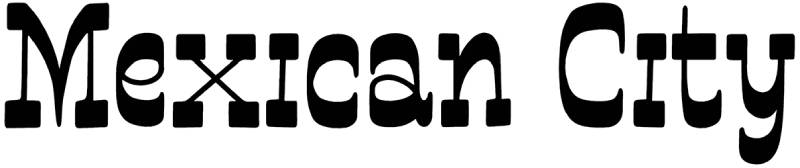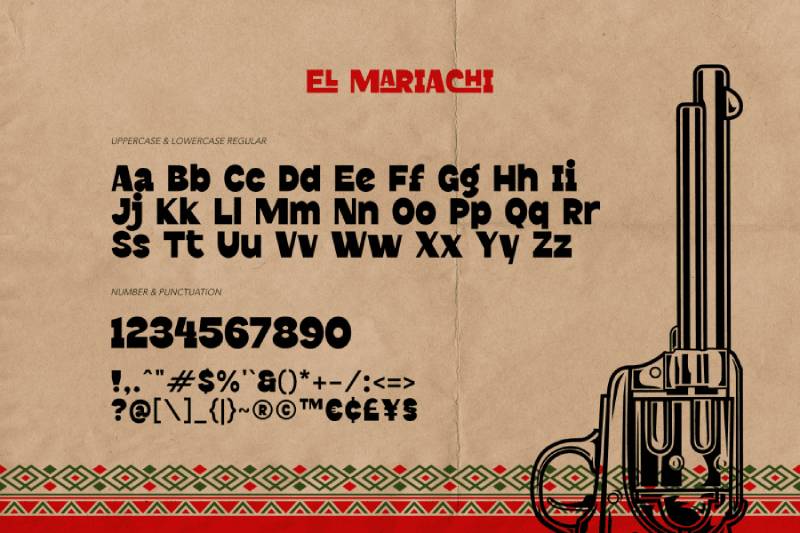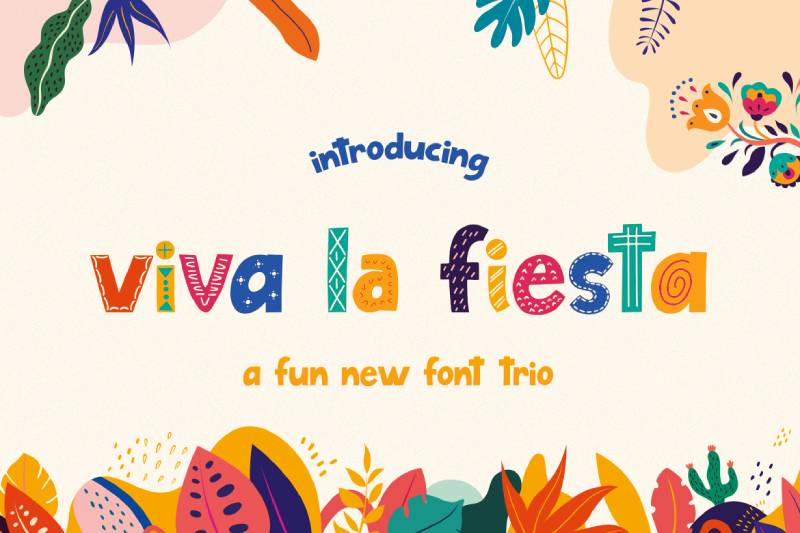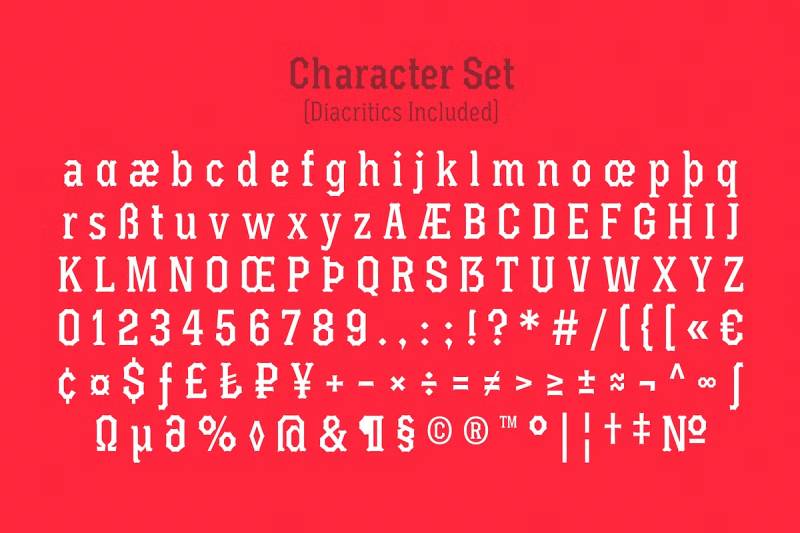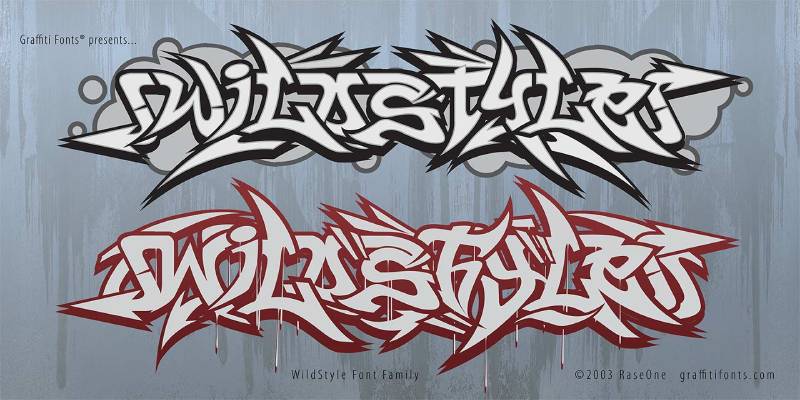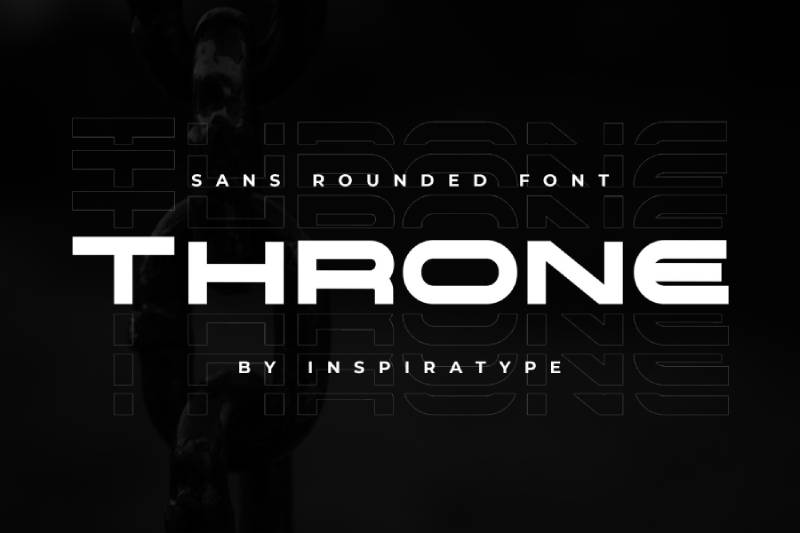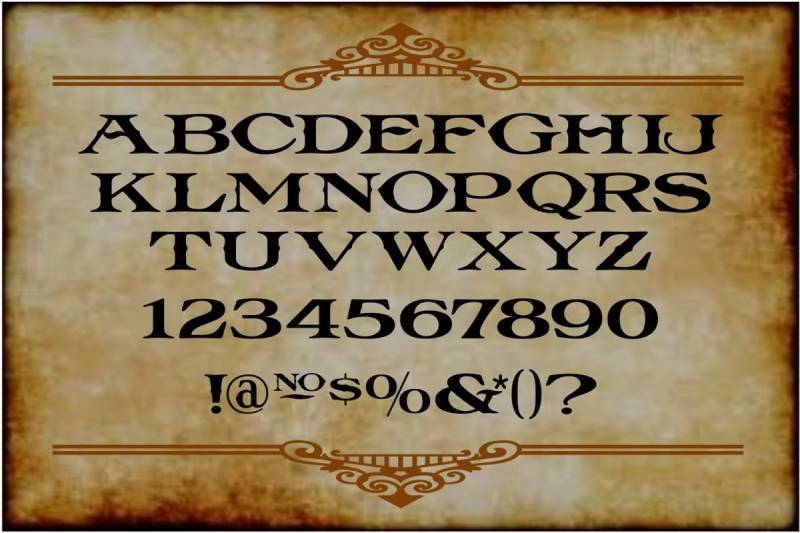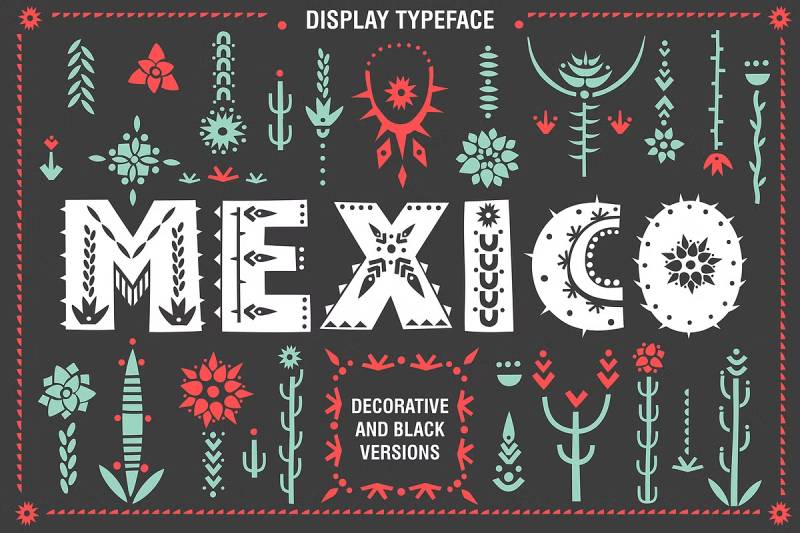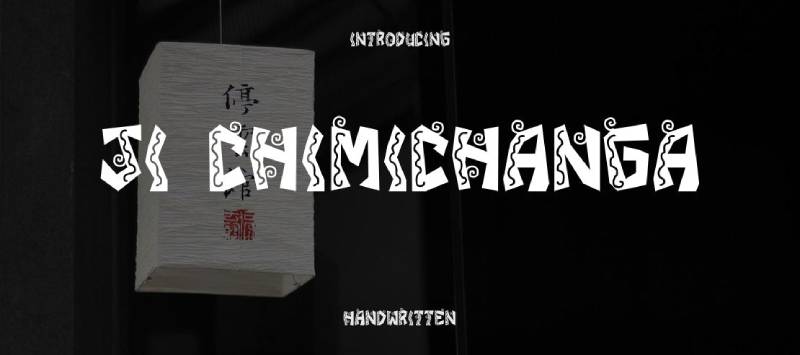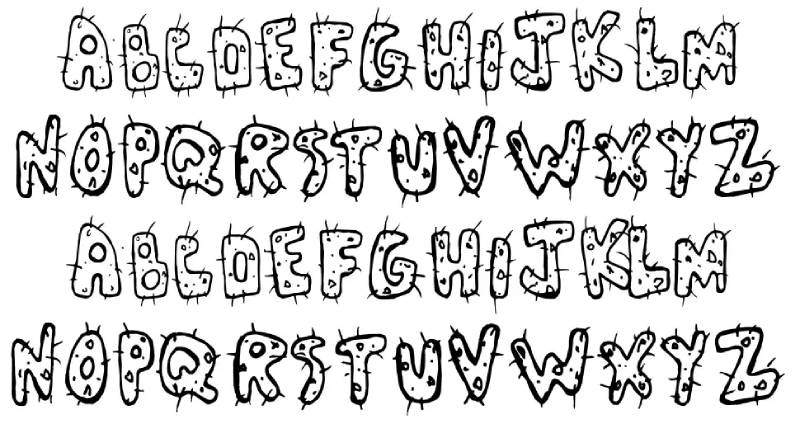
Mexican culture doesn’t whisper. It announces itself with bold colors, rich textures, and unmistakable energy. Finding the best Mexican fonts means capturing that spirit in letterforms.
Whether you’re designing a taco truck logo, Cinco de Mayo flyers, or Día de los Muertos event materials, the right Hispanic typeface makes all the difference.
This guide covers 24 Mexican-style fonts ranging from hand-decorated folk art lettering to bold display types and vintage Western options. You’ll learn what makes each font unique, where to use it, and how to pair fonts effectively.
Some are free. Others require licensing. All bring authentic Latin flair to your creative projects.
The Best Mexican Fonts
| Font Name | Design Context | Semantic Attributes | Best Use Case |
|---|---|---|---|
| Buckaroo | Western-inspired aesthetic with Mexican ranching heritage | Rustic, bold, cowboy culture | Restaurant signage, rodeo events |
| Mexican City | Urban Mexican typography with contemporary flair | Modern, metropolitan, cultural | Urban brand identity, modern menus |
| El Mariachi | Traditional musician aesthetic with ornate details | Musical, decorative, celebratory | Entertainment venues, festival posters |
| Locobeans | Playful coffee culture with Mexican energy | Energetic, whimsical, casual | Coffee shop branding, casual dining |
| Viva La Fiesta | Festive celebration typography with vibrant character | Joyful, party-themed, expressive | Party invitations, event marketing |
| Santiago | Colonial Spanish influence with refined elegance | Classic, historical, sophisticated | Upscale restaurants, heritage projects |
| Gandul | Laid-back street style with relaxed personality | Casual, easygoing, authentic | Food truck branding, street food |
| See De Mayo | Holiday-specific design with patriotic undertones | Celebratory, patriotic, seasonal | Cinco de Mayo promotions, Mexican holidays |
| La Tequila | Spirit-inspired aesthetic with premium quality signals | Premium, beverage-focused, mature | Bar branding, beverage labels |
| Durango | Regional state typography with northern character | Regional, robust, authentic | Regional branding, authentic venues |
| Wildstyle | Graffiti-influenced urban Mexican street art | Edgy, urban, artistic | Youth-oriented brands, street wear |
| Mexicanos | National identity typography with cultural pride | Patriotic, national, proud | Cultural events, national campaigns |
| Throne | Regal Mexican empire aesthetic with authority | Majestic, authoritative, imperial | Luxury brands, premium products |
| Longhorn | Texas-Mexican cattle ranching heritage | Western, ranch-inspired, sturdy | Steakhouses, Tex-Mex restaurants |
| Mexico (decorative) | Ornamental traditional design with intricate patterns | Decorative, traditional, ornate | Formal invitations, decorative headers |
| Krenzy Crispy | Crunchy food texture with playful energy | Fun, food-centric, textural | Snack packaging, fast food chains |
| Chinchilla | Soft furry aesthetic with gentle character | Soft, friendly, approachable | Family restaurants, children’s content |
| Chimichanga | Specific dish identity with playful food culture | Food-specific, fun, appetizing | Menu headers, food delivery apps |
| Cactus Love | Desert flora with romantic Mexican charm | Natural, romantic, desert-inspired | Wedding invitations, botanical themes |
| Mexican Tequila | Spirit-specific branding with agave heritage | Authentic, spirit-focused, traditional | Tequila labels, bar menus |
| Taco Box | Fast-casual food packaging with convenience focus | Quick-service, packaging-oriented, casual | Fast food chains, takeout branding |
| Avocado Taco | Fresh ingredient focus with health-conscious appeal | Fresh, healthy, ingredient-driven | Health-focused eateries, fresh menus |
| Cactus Sandwich | Fusion food concept with desert elements | Fusion, unique, adventurous | Fusion restaurants, creative menus |
| Mayan Square | Ancient civilization geometry with historical depth | Historical, geometric, ancient | Cultural museums, heritage sites |
Buckaroo
What It Is
A handmade display font created by HipFonts. Buckaroo draws from American Southwest and Mexican design traditions. It blends old Western lettering with contemporary functionality.
Visual Characteristics
- Rounded sans-serif with hand-drawn edges
- Warm, approachable letterforms
- Full uppercase and lowercase character set
- Slightly weathered texture that feels authentic
- Numbers and special characters included
This typeface channels hand-painted signage traditions common across Mexico and the American Southwest.
Cultural Context
Think desert cantinas, vintage Tex-Mex signage, and taco truck branding. Buckaroo captures that cross-border aesthetic where Mexican and American Western cultures meet.
Not overtly stereotypical. It has that lived-in quality you see on old restaurant signs in border towns.
Best Use Cases
- Restaurant and taqueria branding
- Food packaging design
- Event posters and flyers
- T-shirt graphics
- Signage and badges
- Logo design for southwestern themes
Works best at larger sizes where the handcrafted details show.
Pairing Recommendations
Combine with clean sans-serif fonts for body text. Works well alongside simple geometric typefaces that don’t compete with its decorative personality.
Technical Details
- Formats: OTF, TTF
- Full character set with punctuation
- Free for personal use
- Commercial license available through Creative Market and Envato Elements
Similar Alternatives
- Durango: More rugged Western feel
- Santiago: More ornate Mexican decoration
- Gandul: Similar vintage vibe, different weight options
Mexican City
What It Is
A slab serif font designed by Hilmius Akbar and published by Typefactory. Inspired by mid-19th century typefaces with thick bracketed serifs.
Visual Characteristics
- Bold slab serifs with generous proportions
- Clean, sharp edges mixed with subtle thickness variations
- Neat letter arrangement
- Uppercase and lowercase letters
- Ligatures and stylistic alternates included
- Multilingual support with Spanish characters
Cultural Context
Mexican City references the colonial architectural typography you see in old city buildings. It’s formal enough for upscale Mexican restaurants but casual enough for everyday branding.
Less folk art, more metropolitan sophistication. The name says it all.
Best Use Cases
- Headlines and poster design
- Logo and branding projects
- Restaurant menus (especially upscale establishments)
- Product packaging
- Editorial design
- Jacket and apparel graphics
This typeface creates strong visual hierarchy in designs where you need authority with character.
Pairing Recommendations
Works beautifully with script fonts for accents. Pair with simple sans-serifs for body copy. The bold serifs need breathing room.
Technical Details
- Formats: OTF, TTF, WOFF, WOFF2
- Available on MyFonts, Dafont, Creative Fabrica
- Demo version free for personal use
- Commercial license required for business projects
Similar Alternatives
- Luchador: More vintage wrestling poster feel
- Mexicana: Similar slab-serif structure with more ornamentation
- Brellos: Angular shapes with Mexican influence
El Mariachi
What It Is
A bold sans-serif font designed by ikiiko (Wahyu Eka Prasetya and Andhika Pradana), published by IKIIKOWRK. Released in 2021.
Simple letterforms meet attractive ligatures. Strong character without overwhelming decorative elements.
Visual Characteristics
- Bold weight throughout
- Clean sans-serif base
- Eye-catching ligatures add personality
- All-caps design feel despite having lowercase
- Vintage poster influence
The ligatures are what make this one special. They add character without going full decorative.
Cultural Context
Named after the iconic Mexican musicians. El Mariachi captures the energy and confidence of mariachi culture without the sombreros and cactus clichés.
It’s more urban Mexico City than tourist shop.
Best Use Cases
- Vintage design projects
- Mexican brand product packaging
- Movie posters and entertainment graphics
- Food industry branding
- Fashion and apparel design
- Print design projects
Looks fantastic on taco menus. Just saying.
Pairing Recommendations
Pair fonts with thin or light-weight sans-serifs. The bold character needs contrast. Script fonts work for accents but don’t overdo it.
Technical Details
- Formats: OTF, TTF
- Full character set included
- Demo version free for personal use
- Commercial license available through ikiiko
Similar Alternatives
- Buckaroo: More hand-drawn, less structured
- Mexican City: Slab-serif versus sans-serif
- Gandul: Similar vintage American feel
Locobeans
What It Is
A font duo created by Salt and Pepper Designs. Includes two versions: Fill and Outline. Takes a standard sans-serif structure and gives it playful personality.
Visual Characteristics
- Bouncy, irregular sans-serif letterforms
- Two complementary styles (solid fill and outline)
- Whimsical, hand-drawn character
- Playful weight distribution
- Full character set
The outline version looks great layered over the fill version for two-color effects.
Cultural Context
Less traditional Mexican, more fiesta party vibes. Locobeans works for fun, casual projects that need Latin energy without historical weight.
Kid-friendly. Birthday party appropriate.
Best Use Cases
- Children’s party invitations
- Cinco de Mayo celebrations
- Social media graphics
- Instagram posts and stories
- Playful branding
- Summer event promotions
Not for serious corporate work. That’s the whole point.
Pairing Recommendations
Works standalone or combined (fill plus outline). For body text, use simple geometric sans-serifs that don’t fight for attention.
Technical Details
- Formats: OTF, TTF, WOFF, WOFF2, EOT, SVG
- Two font files included
- Available on Creative Market, Font Bundles, Envato Elements
- Commercial license included with purchase
Similar Alternatives
- Viva La Fiesta: Similar playful energy, more style options
- Chimpo: Paper-cut inspired with festive vibes
- Cucciolo: Friendly sans with Mexican touches
Viva La Fiesta
What It Is
A font trio by Salt and Pepper Designs. Three distinct but harmonizing fonts (Uno, Dos, and Tres) plus base versions. Each available in OTF and TTF formats.
Visual Characteristics
- Bold, blocky letterforms across all three styles
- Decorative patterns and doodle elements
- Distressed textures on some versions
- Patterned fills (Aztec-inspired geometric designs)
- Distinct personality per style
Uno is boldest. Dos adds ornate details. Tres brings different decorative treatment.
Cultural Context
Straight-up celebration typography. Viva La Fiesta captures Mexican fiesta culture with its colorful, kooky letterforms.
Works for Cinco de Mayo, Day of the Dead, and any Latin-themed party graphics.
Best Use Cases
- Party invitations and event flyers
- Cinco de Mayo promotions
- Festival and carnival branding
- Greeting cards
- Social media celebration posts
- Seasonal marketing materials
Mix and match the three styles within a single design for layered effects.
Pairing Recommendations
These three fonts pair with each other by design. For additional text, keep it simple. The Fiesta fonts are loud enough.
Technical Details
- Six font files total (three main, three base versions)
- Formats: OTF, TTF
- Works in Photoshop, Illustrator, InDesign, Cricut, Silhouette
- Commercial license included
Similar Alternatives
- Locobeans: Similar playful approach, two-style system
- Chimpo: Paper-cutting inspired festive font
- Cultures Carnival: Multicultural festival typography
Santiago
What It Is
A handmade decorative typeface designed by Igor Ovsyannykov and published by HipFonts. Each letter was decorated by hand over several weeks. This one has serious craftsmanship behind it.
Visual Characteristics
- Ornate, hand-drawn decoration on every letter
- Display font with unique character embellishments
- Folk art inspired patterns within letterforms
- Full uppercase and lowercase sets
- Numbers included
The attention to detail is obvious. Every letter feels individually crafted.
Cultural Context
Santiago represents traditional Mexican folk art typography. Think papel picado, embroidered textiles, and hand-painted ceramics translated into letter shapes.
More authentic cultural representation than novelty fiesta fonts.
Best Use Cases
- Mexican restaurant branding and menus
- Cultural event materials
- Wedding and party invitations
- Greeting cards
- Advertising campaigns
- Magazine layouts and editorial spreads
- Apparel graphics
Use sparingly. This font commands attention.
Pairing Recommendations
Simple serif or sans-serif for body text. Santiago needs to be the star. Consider pairing with a neutral typeface that steps back completely.
Apply typographic hierarchy principles carefully here.
Technical Details
- Formats: OTF, TTF
- Available on Etsy, MyFonts, Creative Fabrica
- Extended commercial license available ($99)
- Works with Canva Pro, Procreate, Cricut Design Space
Similar Alternatives
- Mexico (decorative font): Similar folk-art approach with cactus motifs
- Mexicana: Colonial-influenced with decorated serifs
- Muertos: Day of the Dead themed hand-drawn style
Gandul
What It Is
A serif display font family designed by Jorge Mercado (yockmercado). “Gandul” means “slacker” in Spanish, which captures its laid-back vintage vibe. Available in multiple weights.
Visual Characteristics
- Slab-serif structure with letterpress texture
- Four weight options (Regular, Semi Bold, Bold, plus Clean versions)
- Vintage American typography influence
- Strong vertical stress
- Square, blocky proportions
The textured versions look like they came off an old printing press. Clean versions give you modern versatility.
Cultural Context
Gandul blends American Western typography with Mexican design sensibility. Think old denim labels, whiskey bottles, and vintage baseball graphics.
Less traditional Mexican folk, more cross-cultural vintage Americana.
Best Use Cases
- Beer labels and beverage branding
- Vintage poster projects
- Sports and athletic branding
- Whiskey and spirits packaging
- Restaurant and bar signage
- Apparel with vintage aesthetic
The multiple weights give you flexibility within a single project.
Pairing Recommendations
Works well with other vintage-inspired typefaces. The textured versions pair nicely with clean sans-serifs for contrast.
Technical Details
- Formats: OTF, WOFF
- 10 styles in full family package
- Available on Creative Market, MyFonts
- Desktop, web, app, and electronic document licensing available
Similar Alternatives
- El Mariachi: Similar vintage feel, sans-serif
- Luchador: Wrestling poster vintage style
- Mexican City: Similar slab-serif approach
See De Mayo
What It Is
A western serif typeface created by Heroglyphs Studio. Vintage style with all-caps design and stylistic alternates. Comes bundled with Cinco de Mayo vector illustrations.
Visual Characteristics
- Vintage western serif font structure
- All-caps design with lowercase variations
- Stylistic alternates for design flexibility
- Rough, weathered texture
- Strong, bold letterforms
The bonus vector pack adds maracas, sombreros, and other celebration elements.
Cultural Context
See De Mayo targets Cinco de Mayo celebrations specifically. It’s designed for seasonal marketing and party graphics.
More commercial celebration font than cultural representation.
Best Use Cases
- Cinco de Mayo event materials
- Mexican restaurant seasonal promotions
- Party invitations and flyers
- Greeting cards
- Social media holiday posts
- Seasonal product packaging
Obviously, May is the big month for this one.
Pairing Recommendations
The included vector elements are designed to work with the font. For additional text, keep it simple and let See De Mayo be the headline attraction.
Technical Details
- Formats: OTF, TTF, WOFF, EOT
- Uppercase, lowercase, numbers, punctuation
- Stylistic alternates included
- Bonus Cinco de Mayo vectors (AI and EPS formats)
- Commercial license included
Works with Cricut and Silhouette cutting machines for craft projects.
Similar Alternatives
- Cinco De Mayo (by Artolus): Similar seasonal focus
- Buckaroo: Less overtly holiday-themed
- Durango: Western style without the celebration angle
La Tequila
What It Is
A playful serif typeface created by LeoSupply.co. La Tequila brings fun, summer vibes with vintage lettering influences. It has that carefree attitude you want for festive projects.
Visual Characteristics
- All-caps design with swash elements
- Serif base with decorative flourishes
- Hand-lettered aesthetic
- Italic styling available
- Full character set with punctuation
The letterforms have that hand-painted cantina sign quality.
Cultural Context
La Tequila targets summer themes and Mexican celebration designs. Think tequila bottles, beach bars, and party invitations. Less traditional folk art, more contemporary fiesta.
Best Use Cases
- Signs and signage
- T-shirt graphics
- Greeting cards
- Summer event promotions
- Beverage branding
- Party invitations
Works great for anything needing that relaxed Latin vibe.
Pairing Recommendations
Combine with simple sans-serifs for body text. The decorative elements need space to breathe.
Technical Details
- Formats: OTF, TTF
- Free for personal use (demo version)
- Commercial license required via LeoSupply.co
- Available on Dafont and Creative Market
Similar Alternatives
- Mexican Tequila: More patterned, bolder approach
- Taco and Tequila: Similar theme, different execution
- Buckaroo: Less decorative, more Western
Durango
What It Is
Two different fonts share this name. The Western version by Dennis Ludlow (Sharkshock) is an all-caps display font inspired by old Western movies. The script version by another designer draws from Mexican tattoo lettering.
Visual Characteristics
Durango Western (Sharkshock):
- Tall, condensed letterforms
- Thick slab serifs
- Close letter spacing
- Regular and eroded (distressed) versions
- Cyrillic character support
Durango Script:
- Bold tattoo-style script
- Swash package included
- Latin American band/gangster aesthetic
Cultural Context
The Western version channels old movie posters and wanted signs. The script version represents Mexican street culture and tattoo traditions.
Both capture different aspects of border-region visual culture.
Best Use Cases
- Wanted posters and Western themes
- Team logos and sports branding
- Movie posters
- Social media graphics
- Barbershop branding
- Alcoholic beverage packaging
The eroded version adds instant vintage character.
Pairing Recommendations
The Western version works with other vintage display types. Keep supporting text clean and simple.
Technical Details
- Formats: OTF, TTF
- 2 styles (Regular and Eroded)
- Extended Latin and Cyrillic support
- $25 for personal use, commercial license separate
- Available on MyFonts, Dafont, Fontspring
Similar Alternatives
- Mexican City: Similar slab-serif energy
- Longhorn: Texas/Western crossover
- Gandul: Vintage American-Mexican blend
Wildstyle
What It Is
A creative, edgy display font with tattoo-inspired aesthetics. Features both uppercase and lowercase letters with swashes on lowercase endings.
Visual Characteristics
- Mixed case with decorative swashes
- Ligatures for unique character combinations
- Alternative font version included
- Bold, attention-grabbing letterforms
- Graffiti influence in the stroke patterns
The ending swashes on lowercase letters add movement and flow.
Cultural Context
Wildstyle sits at the intersection of Mexican tattoo culture and urban street art. Less traditional fiesta, more contemporary Chicano influence.
Best Use Cases
- Tattoo designs
- Urban branding projects
- Music and entertainment graphics
- Apparel design
- Street-style marketing
- Album covers
Not for corporate work. This font has attitude.
Pairing Recommendations
Keep it simple with supporting fonts. Wildstyle demands the spotlight.
Technical Details
- Formats: OTF, TTF
- Includes alternative font version
- Ligatures and swash elements
- Commercial licensing available
Similar Alternatives
- Throne: Similar gothic/tattoo vibe
- Mexicanos: Urban Mexican aesthetic
- Broken Chains: Hispanic tattoo style
Mexicanos
What It Is
A vintage display font with classic tribal tattoo and blackletter influences. Bold letterforms with distinctive cuts in the upper portions of characters.
Visual Characteristics
- Strong, bold uppercase letters
- Sharp extenders
- Cut details on character tops
- Vintage display aesthetic
- Numbers and punctuation included
- Multilingual support
The cuts in the letters give it that edgy, tattoo-ready look.
Cultural Context
Mexicanos represents the intersection of traditional Mexican visual culture and contemporary tattoo art. Urban, strong, and unapologetically bold.
Think Mexico City street style, not tourist shop.
Best Use Cases
- Tattoo lettering
- Logo design principles for edgy brands
- Outdoor branding and signage
- Shirt graphics
- Poster design projects
- Studio branding
Works best at larger sizes where details show.
Pairing Recommendations
Use alone for headlines. Pair with neutral sans-serifs for supporting text.
Technical Details
- Formats: OTF, TTF
- Available on Envato Elements
- Regular, Italic, and Outline versions
- Multilingual character support
Similar Alternatives
- Throne: Similar gothic influence
- Brellos: Cowboy-meets-vintage aesthetic
- Luchador: Wrestling poster vintage style
Throne
What It Is
A Mexican tattoo-inspired typeface paying homage to old gothic blackletter styles while keeping a simpler, contemporary touch. Created for those who want edge without overwhelming complexity.
Visual Characteristics
- Blackletter foundation with modern simplification
- Gothic influence throughout
- Stylistic alternatives available
- A-Z characters plus numerals
- Punctuation and multilingual options
It’s blackletter made accessible.
Cultural Context
Throne represents the Grunge design and gothic subcultures within Mexican visual identity. Popular in rock, metal, and whiskey branding.
Less Día de los Muertos, more dark and rebellious.
Best Use Cases
- Gothic and vintage themes
- Rock band merchandise
- Whiskey packaging
- Tattoo flash designs
- Dark-themed events
- Motorcycle culture branding
Perfect for projects needing edge without clichés.
Pairing Recommendations
Works well with other vintage or gothic elements. Keep secondary text simple.
Technical Details
- Formats: OpenType-PS, OpenType-TT, Web-TT
- PDF guide included
- Stylistic alternatives
- Multilingual support
Similar Alternatives
- Mexicanos: Similar urban edge
- Wildstyle: More graffiti influenced
- Black Ghosthic: Bold gothic alternative
Longhorn
What It Is
A display font created by inumocca and inksun aksara, inspired by Texas Longhorn culture and vintage typography. Multiple versions exist, including one by Adam Bell (Belldorado) with 3D capabilities.
Visual Characteristics
inumocca version:
- Sans-serif with Western flair
- Full character set
- Clean, modern vintage look
Belldorado version:
- College-style lettering
- 3D and fill versions for layering
- Stencil and woodcut variations
- Six style family
Both capture that Tex-Mex crossover aesthetic.
Cultural Context
Longhorn bridges Texas and Mexican design traditions. Steakhouses, rodeos, and sports teams. Cross-border culture at its finest.
Best Use Cases
- Steakhouse and restaurant branding
- Sports team logos
- Brand identity
- Apparel graphics
- Retro sports designs
- Product packaging
The 3D version creates impressive layered effects.
Pairing Recommendations
Works with other Western or vintage fonts. The Belldorado version pairs with its own fill font for color layering.
Technical Details
- Formats: OTF, TTF
- Multiple style variations available
- Free for personal use
- Commercial licenses vary by version
- Available on Creative Market, Envato Elements
Similar Alternatives
- Durango Western: Similar Old West feel
- Gandul: Vintage American typography
- Mexican City: Slab-serif alternative
Mexico (Decorative Font)
What It Is
A decorative display font family by Struvictory.art (Viktoryia and Viktor Strukouski). Letters decorated with floral ornaments based on Mexican landscapes. Two versions: Decorative and Black.
Visual Characteristics
- Floral ornaments integrated into letterforms
- Cactus and desert plant motifs
- Two font styles (Decorative and Black solid)
- Sans-serif base structure
- Full uppercase and lowercase
- Multilingual support
Each letter is basically a small piece of folk art.
Cultural Context
Mexico font represents the country’s landscape and flora. Think desert plants, succulents, and wild flowers translated into typography elements.
More naturalistic than traditional papel picado aesthetics.
Best Use Cases
- Clothing and apparel prints
- Photo overlays
- Business branding and packaging
- Tourist brochures
- Book cover design
- Article titles and headlines
Combine the two versions for unique layered effects.
Pairing Recommendations
The Black version pairs directly with the Decorative version. For body text, use simple sans-serifs.
Technical Details
- Formats: OTF, TTF
- Two font files included
- 25 bonus clipart elements (EPS-8, PNG)
- 2 seamless patterns included
- Extensive language support
- Available on Creative Market, MyFonts, Font Bundles
Similar Alternatives
- Santiago: Hand-decorated folk art style
- Cucciolo: Mexican-inspired with decorative elements
- Muertos: Day of the Dead themed
Krenzy Crispy
What It Is
A fun, crispy-textured display font with Mexican food culture vibes. The texture mimics crispy taco shells or fried tortillas.
Visual Characteristics
- Textured, crispy edges on letterforms
- Bold display weight
- Food-inspired aesthetic
- Casual, playful character
The crunchy texture is the whole point here.
Cultural Context
Krenzy Crispy targets Mexican food culture specifically. Tacos, tostadas, and anything fried. It’s niche but effective.
Best Use Cases
- Mexican restaurant menus
- Food packaging
- Taco truck branding
- Snack product labels
- Food blog graphics
- Social media food content
Obviously works best in food contexts.
Pairing Recommendations
Pair with clean fonts for readability. Let Krenzy Crispy handle the headlines.
Technical Details
- Display font format
- Limited character set
- Best at larger sizes where texture shows
Similar Alternatives
- Taco Box: Similar food-focused aesthetic
- Mexican Taco Box: Bold Mexican food styling
- Tacunos: Dough-like Mexican font
Chinchilla
What It Is
A creative script font with Mexican-style influences. Curvy letters with swashes make it ideal for Day of the Dead and festive designs.
Visual Characteristics
- Script letterforms with flowing curves
- Swash elements throughout
- Hand-drawn quality
- Decorative character
The swashes add elegance to the Mexican theme.
Cultural Context
Chinchilla works for Día de los Muertos celebrations and elegant Mexican-themed events. More refined than typical fiesta fonts.
Best Use Cases
- Day of the Dead designs
- Elegant invitations
- Event materials
- Greeting cards
- Feminine Mexican branding
- Wedding materials with Latin flair
Pairing Recommendations
Works with serif fonts for formal projects. Keep supporting text subdued.
Technical Details
- Script font format
- Free for personal use
- Commercial license required for business projects
Similar Alternatives
- Jalisco: Thin signature Mexican script
- La Tequila: Similar celebratory vibe
- Mister Honey: Victorian swash style
Chimichanga
What It Is
A display font by Jeri Ingalls named after the deep-fried burrito. Features zig-zag patterns and three-dimensional letterforms with Art Deco and Victorian influences.
Visual Characteristics
- Decorative zig-zag patterns
- Southwestern tribal styling
- Spiral and swirl elements
- Retro Art Deco influence
- Restaurant and food-friendly aesthetic
The zig-zag patterns give it distinctive character.
Cultural Context
Chimichanga bridges Mexican food culture with vintage Art Deco styling. Works for restaurants, fast food, and festive events.
More upscale than typical taco fonts.
Best Use Cases
- Fast food and restaurant branding
- Menu designs
- Food packaging
- Retro-themed Mexican projects
- Higher-end food establishments
The Art Deco influence adds sophistication.
Pairing Recommendations
Pair with clean sans-serif fonts for supporting text.
Technical Details
- Format: TTF
- 95 glyphs
- Free for personal use
- First appeared on Dafont in 2006
- Available on Dafont, FontSpace
Similar Alternatives
- Taco Box: Similar food focus
- JI Burrito: Another Jeri Ingalls food font
- Puerto Magnifico: Zig-zag pattern style
Cactus Love
What It Is
A graffiti-style Mexican font by Spork Thug Typography. Features razor-like elements across letter surfaces reminiscent of cactus thorns.
Visual Characteristics
- Graffiti-influenced letterforms
- Thorn/razor textures throughout
- Wild Western desert aesthetic
- Bold, attention-grabbing style
- Full character set (227 glyphs)
The thorny texture makes it instantly recognizable.
Cultural Context
Cactus Love represents the wild desert landscapes of Mexico and the American Southwest. Think Sonoran desert, not Mexico City streets.
Best Use Cases
- Western-themed posters
- Desert landscape designs
- Southwestern branding
- Wildlife and nature graphics
- Graffiti-style projects
- Tropical/desert themes
Works for designs featuring snakes, lizards, and desert wildlife.
Pairing Recommendations
Use alone for maximum impact. Keep secondary elements clean.
Technical Details
- Formats: TTF (CACTUS.TTF, CACTL___.TTF)
- 100% free for personal and commercial use
- Available on Dafont since before 2005
- 162,000+ downloads
Similar Alternatives
- Cactus Sandwich: Floral cactus aesthetic
- Cacti Display: Bold cactus-themed
- Mexico (decorative): Desert plant motifs
Mexican Tequila
What It Is
A patterned display font by Vladimir Nikolic featuring bold, native-style letterforms with textured, 3D shadow effects. Available in Regular and Italic styles.
Visual Characteristics
- All-caps design only
- Patterned texture within letters
- 3D shadow effects
- Bold, playful appearance
- Native/tribal-inspired patterns
- Italic version available
The internal patterns create visual interest at any size.
Cultural Context
Mexican Tequila evokes native Mexican aesthetics with its patterned letterforms. Festive, bold, and unapologetically decorative.
Best Use Cases
- Event flyers and posters
- Movie titles
- Native music graphics
- Channel banners
- Party designs
- Cultural celebration materials
The patterns work best at larger sizes.
Pairing Recommendations
Use for headlines only. The patterns make body text unreadable.
Technical Details
- Formats: TTF
- 70 characters per style
- Regular and Italic versions
- Free for personal use
- Commercial license via Creative Fabrica
- First on Dafont: July 2018
Similar Alternatives
- La Tequila: Similar theme, script style
- Tacunos: Food-focused Mexican
- Viva La Fiesta: Patterned trio
Taco Box
What It Is
A bold, chunky display font by Chloe5972 capturing Mexican street food culture. One of the original free Mexican fonts, appearing on Dafont before 2005.
Visual Characteristics
- Bold, blocky letterforms
- All-caps design
- Chunky, impactful weight
- Simple structure
- 100% free
No frills. Just bold Mexican character.
Cultural Context
Taco Box represents casual Mexican food culture. Street vendors, food trucks, and neighborhood taquerias. Authentic without being precious about it.
Best Use Cases
- Taco stand signage
- Food truck branding
- Casual restaurant menus
- Party invitations
- Social media food posts
- Packaging design
The simplicity makes it versatile.
Pairing Recommendations
Works with clean sans-serifs. The bold weight needs contrast.
Technical Details
- Format: TTF
- 100% free (personal and commercial)
- 447,000+ downloads on Dafont
- Basic Latin characters
- Available on Dafont, FontSpace
Similar Alternatives
- Mexican Taco Box: More elaborate version
- Tacunos: Dough-like texture
- JI Burrito: Similar food theme
Avocado Taco
What It Is
A playful, food-themed display font by wep (Wahyu Eka Prasetya). Released in 2020/2021 with a casual, handwriting-inspired aesthetic.
Visual Characteristics
- Casual handwriting quality
- Playful letterforms
- Food-friendly aesthetic
- Two font files included
- Basic Latin support
Feels like someone with good handwriting made a taco menu.
Cultural Context
Avocado Taco targets the modern Mexican food scene. Think trendy taco joints, food blogs, and Instagram-worthy presentations.
Best Use Cases
- Restaurant logos
- Food menus
- Social media food content
- Food blog graphics
- Casual branding
- Menu boards
Perfect for that “authentic but hip” vibe.
Pairing Recommendations
Pair with clean modern fonts. The casual style needs professional support.
Technical Details
- Formats: TTF
- 2 font files
- 95-98 glyphs
- Free for personal use
- Commercial use varies
- Available on Dafont, FontSpace
Similar Alternatives
- Taco Box: Bolder alternative
- Cucciolo: Friendly Mexican-inspired
- Tacunos: Food display style
Cactus Sandwich
What It Is
A playful, Mexican-inspired display font featuring cactus flower decorations on letterforms. Each letter incorporates desert flora elements.
Visual Characteristics
- Cactus flower ornaments on letters
- Desert landscape inspiration
- Elegant yet playful character
- Decorative display styling
- Unique per-letter elements
Almost every letter gets its own cactus flower treatment.
Cultural Context
Cactus Sandwich celebrates Mexico’s desert ecosystems. Works for botanical themes, skincare brands using cactus extracts, and nature-focused projects.
Best Use Cases
- Flower catalogs and floristry
- Skincare product branding (cactus-based)
- Desert-themed designs
- Botanical illustrations
- Nature and wildlife graphics
- Eco-friendly product packaging
Niche but effective when the theme fits.
Pairing Recommendations
Use sparingly as a headline font. Support with neutral typefaces.
Technical Details
- Display font format
- Decorative character set
- Free for personal and commercial use
- Available on various free font sites
Similar Alternatives
- Mexico (decorative): Similar desert flora theme
- Cactus Love: Thorny texture version
- Cactus Flower: Botanical styling
Mayan Square
What It Is
A geometric display font by Natalia Lopez Chaux based on Mexican Mayan culture. Features angular, architectural letterforms inspired by ancient Mayan script and pyramids.
Visual Characteristics
- Geometric, angular shapes
- Psychology of shapes influence from ancient architecture
- Square, blocky construction
- Ancient script inspiration
- Pre-Columbian aesthetic
The letterforms reference Mayan glyphs and temple architecture.
Cultural Context
Mayan Square represents Mexico’s indigenous heritage. Pre-Colombian civilization, ancient temples, and archaeological themes. This is the deep history side of Mexican culture.
Best Use Cases
- Cultural and historical projects
- Museum materials
- Archaeological themes
- Educational content
- Documentary graphics
- Heritage branding
Works when you need authentic pre-Hispanic vibes.
Pairing Recommendations
Pair with clean modern fonts for readability. The geometric shapes need contrast.
Technical Details
- Format: TTF
- Free for personal use
- Based on Mayan cultural elements
- Available on Dafont, CufonFonts
Similar Alternatives
- Aztec fonts: Similar pre-Colombian aesthetics
- Ethnic Font: Maya/Aztec tribal influence
- Mayan (font): Another Mayan-inspired option
FAQ on The Best Mexican Fonts
What makes a font “Mexican style”?
Mexican fonts typically feature bold letterforms, decorative elements, and cultural references. Think hand-painted signage, folk art patterns, Aztec-inspired geometry, or Day of the Dead motifs. The best Mexican fonts balance authentic cultural representation with practical readability.
Are Mexican fonts free to use commercially?
It depends on the specific typeface. Many Mexican fonts offer free personal use but require paid licensing for commercial projects. Always check the license terms before using any font in client work or products you plan to sell.
Which Mexican fonts work best for restaurant menus?
Santiago, Mexican City, and Cucciolo work well for menus. They offer cultural authenticity while maintaining legibility. Use decorative fonts for headlines and pair with clean serif or sans-serif options for menu item descriptions.
Can I use Mexican fonts in Canva?
Yes. Many Mexican fonts are available through Canva Pro’s font library. You can also upload custom fonts (OTF or TTF files) to Canva if you have proper licensing. Popular options like Viva La Fiesta and Luchador work directly in Canva.
What’s the best Mexican font for Cinco de Mayo designs?
See De Mayo and Viva La Fiesta were designed specifically for Cinco de Mayo projects. Both include festive elements and bright styling perfect for party invitations, event posters, and social media graphics celebrating the holiday.
How do I pair Mexican fonts with other typefaces?
Use Mexican display fonts for headlines only. Pair them with neutral sans-serifs or simple serifs for body text. The decorative elements need breathing room. Avoid combining multiple ornate fonts, as this creates visual chaos and hurts readability.
Which Mexican fonts support Spanish characters and accents?
Most premium Mexican fonts include full Spanish language support with accented characters (á, é, í, ñ, ü). Santiago, Mexican City, El Mariachi, and Gandul all offer multilingual glyph sets. Always verify character support before purchasing.
What Mexican fonts work for tattoo designs?
Throne, Mexicanos, and Wildstyle were designed with tattoo aesthetics in mind. They feature gothic blackletter influences and bold letterforms that translate well to skin. These fonts also work for t-shirt designs and urban branding projects.
Are there Mexican fonts inspired by Mayan or Aztec culture?
Yes. Mayan Square features geometric letterforms based on ancient Mayan script. The Mexico decorative font includes pre-Columbian plant motifs. These fonts work well for cultural, historical, or archaeological projects requiring indigenous Mexican heritage aesthetics.
What file formats do Mexican fonts come in?
Most Mexican fonts are available in OTF (OpenType) and TTF (TrueType) formats for desktop use. Premium fonts often include web formats like WOFF and WOFF2 for web design projects. Some packages also include SVG and EOT files.
Conclusion
Choosing the best Mexican fonts comes down to matching the typeface to your project’s purpose. Restaurant branding needs different letterforms than Day of the Dead posters or tequila packaging.
The 24 fonts covered here range from traditional hand-decorated styles like Santiago to bold tattoo-influenced options like Throne and Mexicanos.
Pay attention to Spanish language support and character sets when selecting fonts for bilingual designs.
Test your Mexican typography at different sizes. What looks stunning as a headline might lose detail in smaller applications.
Now go make something that captures that Latin American energy.